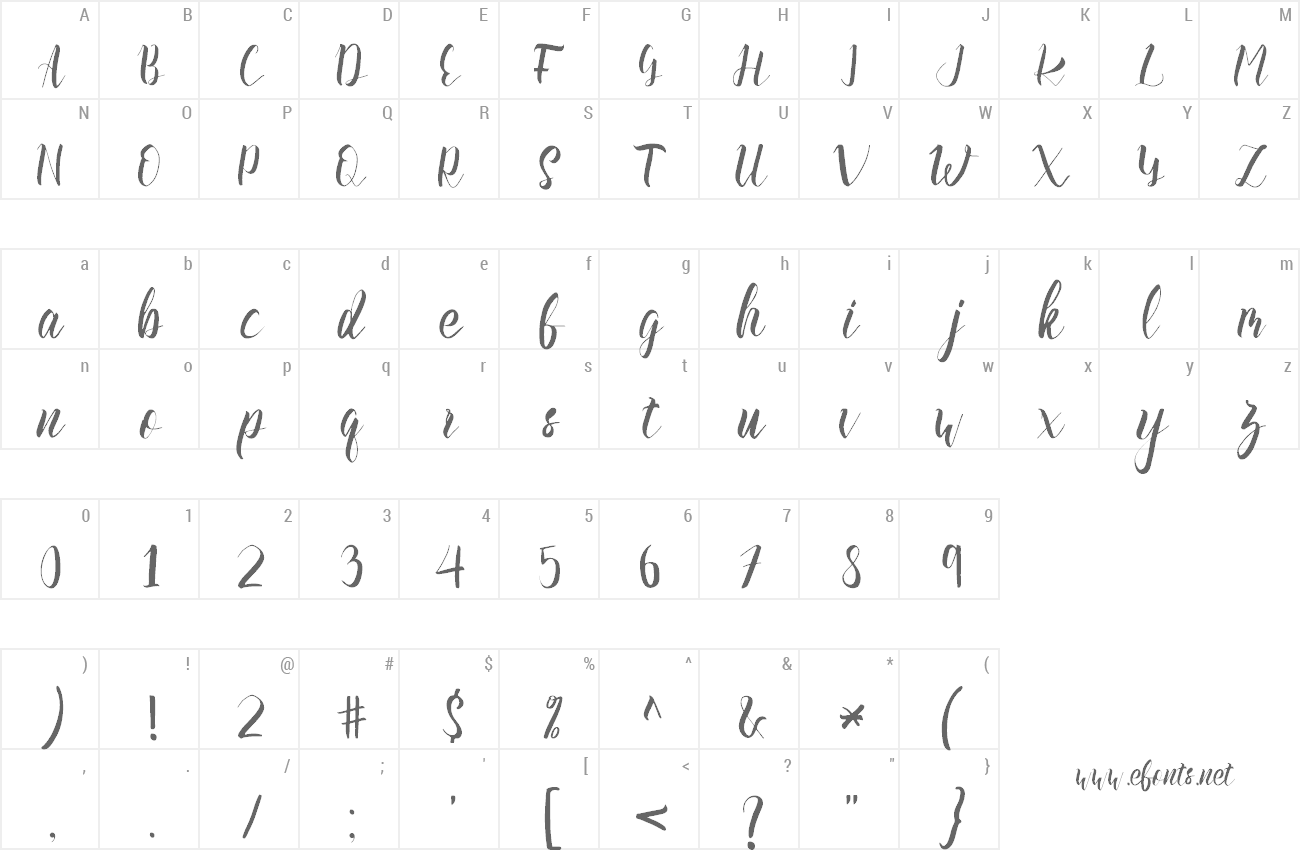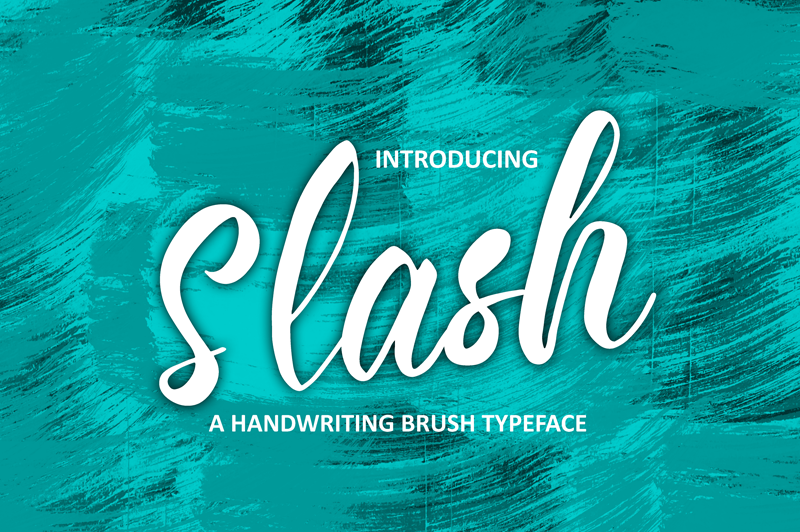
Preview and download Slash Font. Created by Na Creative in Script Brush styles with Free for personal use license.
Slash Font is a fun bold handwriting font, fresh & modern style. Slash Font suitable for nameplate, logo, branding, greeting card, poster, book cover, and any design that you create. you can use this �Slash Font� with Software Image Editor like Adobe Photoshop, Adobe Illustrator, and More Files included: Slash Bold.ttf you will get Free For Personal Use if you want to Full Version (commercial use) you can go to https://fontbundles.net/nacreative/190745-slash please contact me before any commercial use the name of font in computer is "slash" or "slash bold" please you search in your computer with the software editor as adobe illustrator (you will get "slash bold" font) or adobe photoshop (you will get "slash " font) you can look in my video with link (url) https://youtu.be/maCJK67Ui00 Thank you for checking and i hope you enjoy it. Always put your heart into it and don't worry to try. I hope you have as much fun using it as i did making it I hope you can follow and comment to me in https://www.behance.net/rumah12345c603 if you get problems with �slash font� please you call contact us NA CREATIVE mail support: rumah1234567891011@gmail.com |